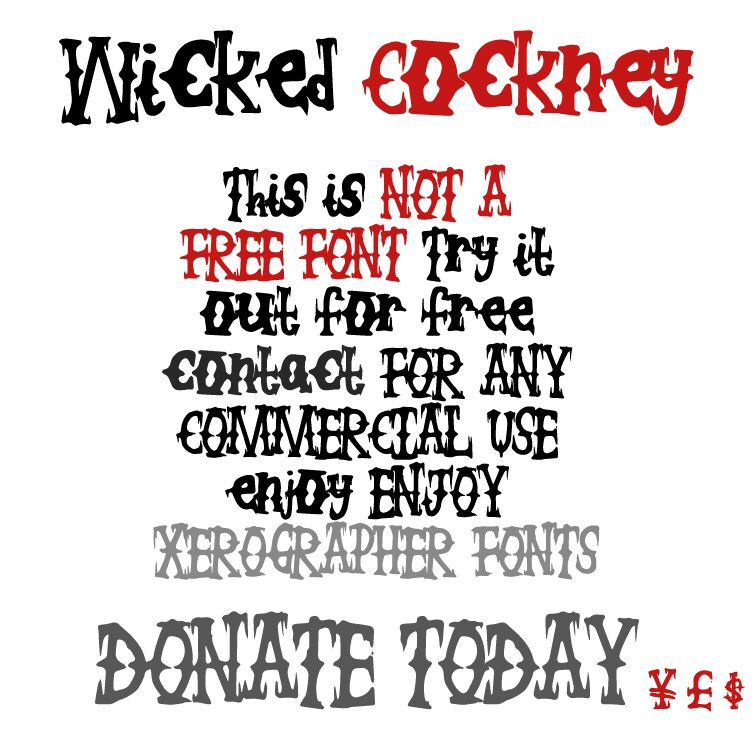
Wicked Cockney from Xerographer Fonts is a free scary display font with warped, ink-heavy lettering. Bulbous strokes pinch into sharp points, and deep ragged cuts make the characters look torn or half-melted. The uneven proportions give every line a queasy wobble.
Horror and dark-comedy projects suit its mix of theatrical serif shapes and messy, unstable edges, especially film posters, game title screens, and Halloween event graphics. For hot-sauce packaging or novelty merchandise, the lettering can become the central brand mark, linking the product to grotesque humor and low-budget monster imagery.